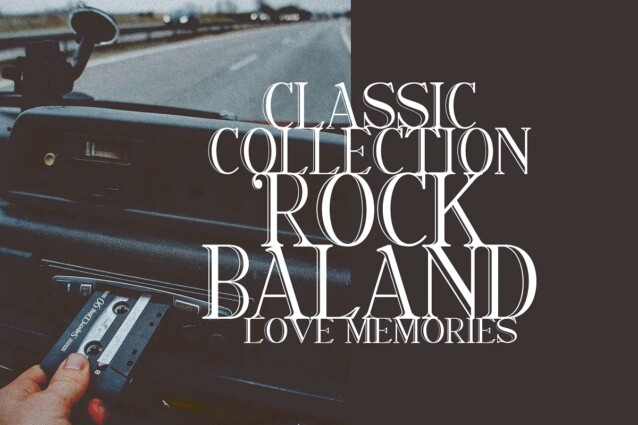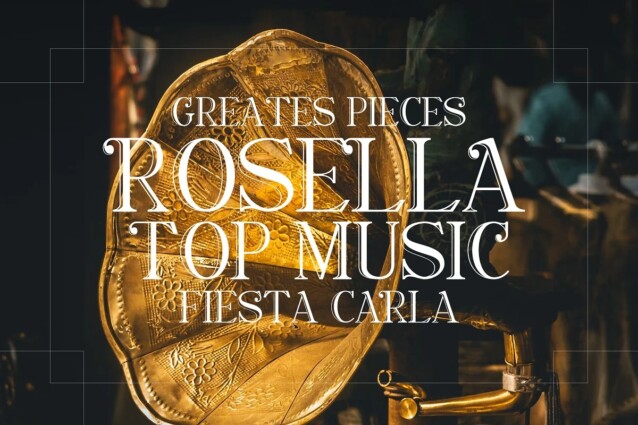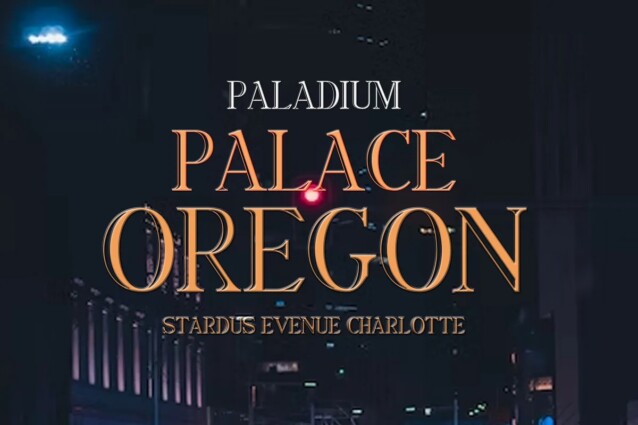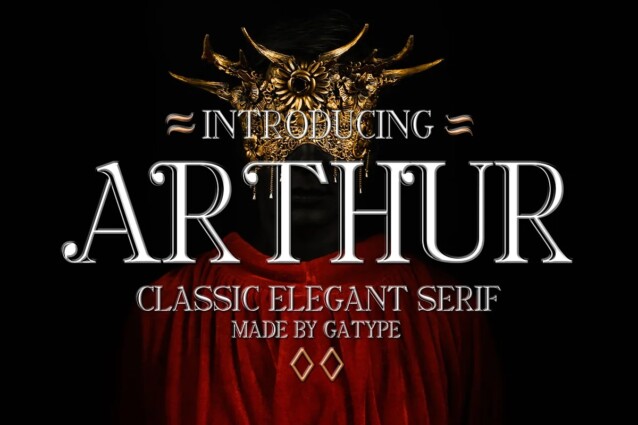
Arthur Font
Arthur Font is a serif font crafted with elegance and luxury, exuding femininity and glamor but also a side of beauty with plenty of alternatives and ties to help you create endless variations for your creative needs. The long, classic serifs make for a unique high-contrast typeface that’s all stylish. It appears regularly and boldly with lower and uppercase letters, numbers, punctuation marks plus multilingual letters. A must have for every modern graphic designer now!